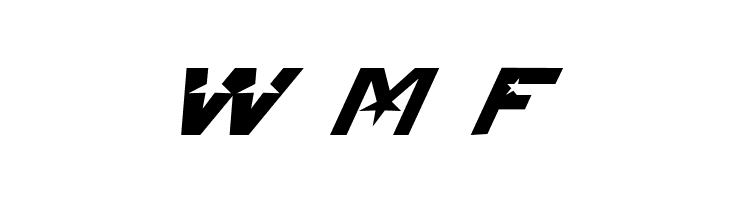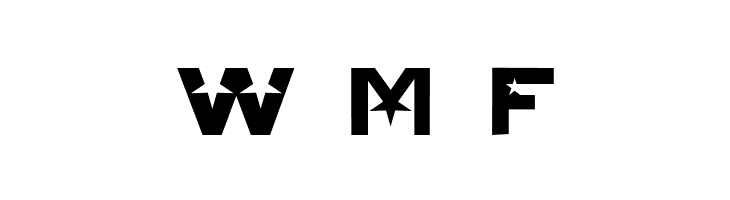
A modern, rounded font with geometric shapes and uniform stroke width.
A clean, geometric font with a modern and minimalist design.
A dynamic and elegant script font with fluid, connected letterforms.
A bold, dynamic font with thick strokes and a slightly slanted design.
A bold, playful handwritten font with a casual and approachable style.
A sleek, modern font with geometric and futuristic design elements.
A decorative font with characters set within ornate heart shapes, combining serif elements with intricate designs.
A playful, hand-drawn font with tall, narrow characters and a whimsical style.
A clean, geometric sans-serif font with excellent readability.
A whimsical and decorative font with intricate, playful embellishments.
A modern, hollow, outlined font with a bold, geometric style.
A bold, modern font with thick, block-like characters.
A modern, italic hollow font with clean lines and geometric structure.
A bold, italic font with a dynamic and modern style.
A bold, decorative serif font with a shadow effect for impactful designs.
A playful, bold font with rounded, blob-like characters and smooth curves.
A bold, dynamic script font with high contrast and flowing characters.
A bold, dynamic script font with flowing cursive characters.
A clean, modern font with rounded edges and consistent styling.
A modern, minimalist set of outlined icons with uniform line weight.
A geometric sans-serif font with a clean, modern design and uniform character width.
A modern, geometric sans-serif font with clean lines and rounded edges.
Minimalist, hairline-weight geometric icon set for UI.
A bold, rounded font with smooth curves and a modern, friendly appearance.
A thin, geometric sans-serif font with a clean and modern design.
A bold, rounded font with a modern and playful style.
A sleek, modern font with thin lines and a minimalist design.
A sleek, ultra-light font with a modern and minimalistic design.
A geometric sans-serif font with a clean, modern design and uniform character width.
A modern, minimalist icon set with clean lines and consistent stroke weight.
A bold, rounded sans-serif font with a modern and friendly appearance.
A modern, rounded font with a clean and friendly design.
Bold, geometric, and modern icon set with high legibility.